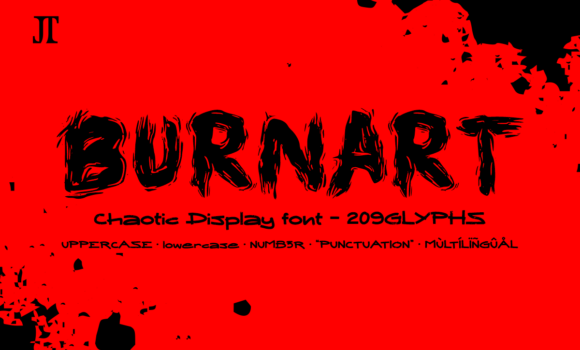
Burnart Font – Free Download Introduction to Burnart Font Burnart is a bold chaotic display font designed to break the rules and stand out instantly. 📸 Preview Gallery 5 images 📌 Product Name Burnart Font 👤 Author Joni type 📂